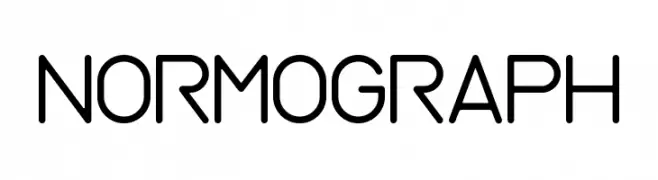
( Walter Paggioro - www.raptuscreativi.com/site/fields/type-design/ )
A modern, geometric font with rounded edges and uniform stroke width.
( Walter Paggioro - www.raptuscreativi.com/site/fields/type-design/ )
A whimsical, hand-drawn font with intricate, swirling embellishments.
( Walter Paggioro - www.raptuscreativi.com/site/fields/type-design/ )
A playful, hand-drawn font with a whimsical and irregular style.
( Walter Paggioro - www.raptuscreativi.com/site/fields/type-design/ )
A constellation-themed font with characters formed by dots and connecting lines.
( Walter Paggioro - www.raptuscreativi.com/site/fields/type-design/ )
A playful, dotted font with a unique, decorative style.
( Walter Paggioro - www.raptuscreativi.com/site/fields/type-design/ )
A tall, narrow, and elegant font with a modern aesthetic.
( Walter Paggioro - www.raptuscreativi.com/site/fields/type-design/ )
A hand-drawn, irregular font with bold, jagged strokes and a quirky, organic feel.
( Walter Paggioro - www.raptuscreativi.com/site/fields/type-design/ )
A whimsical, hand-drawn font with elongated, irregular characters.
( Walter Paggioro - www.raptuscreativi.com/site/fields/type-design/ )
A playful, hand-drawn font with rounded, whimsical characters.
( Walkeren - Didi Syarif - behance.net/walkeren )
A bold, energetic handwritten font with flowing strokes and a lively appearance.